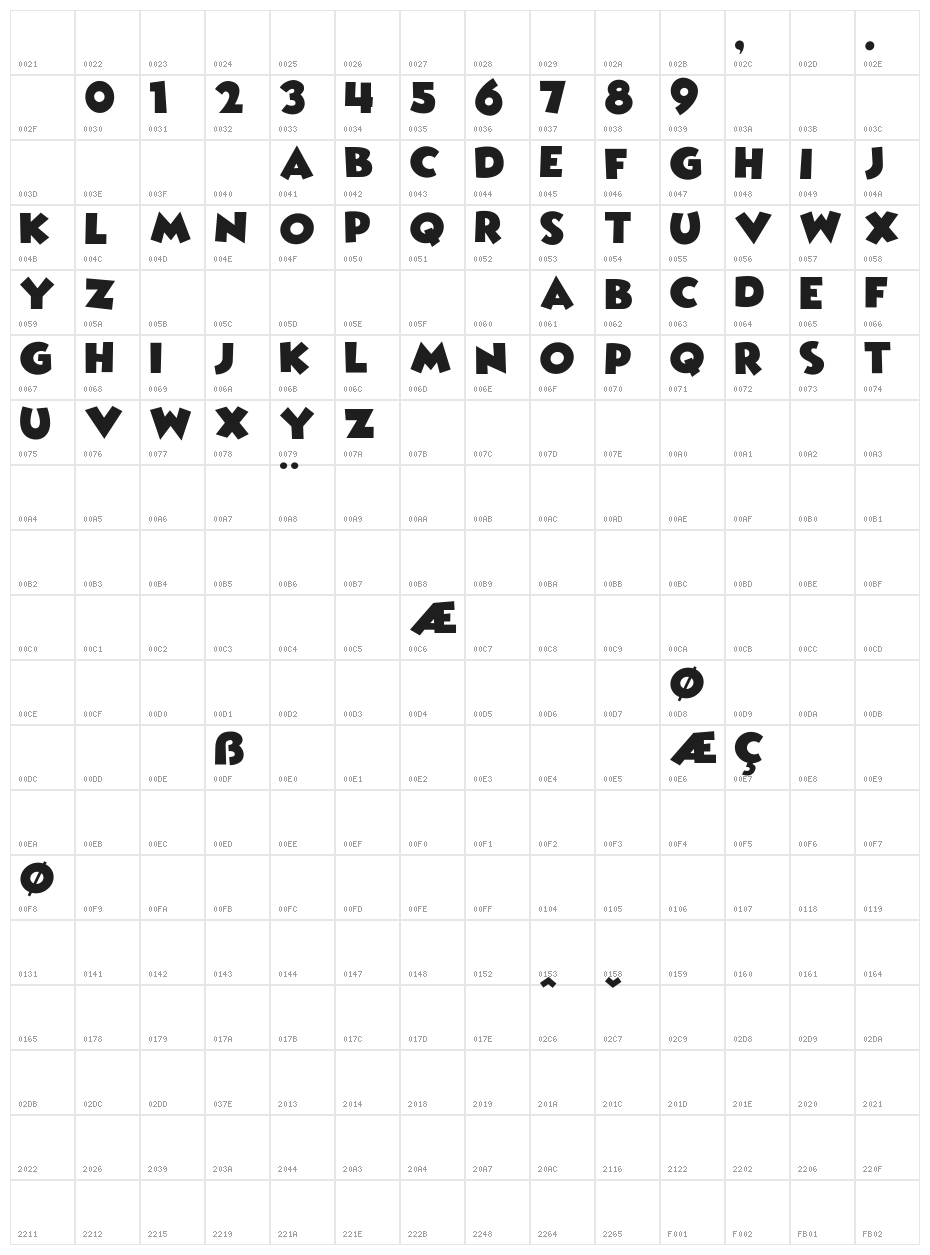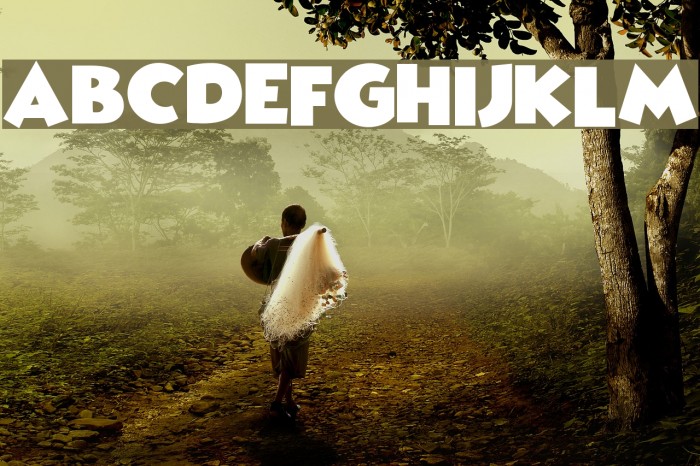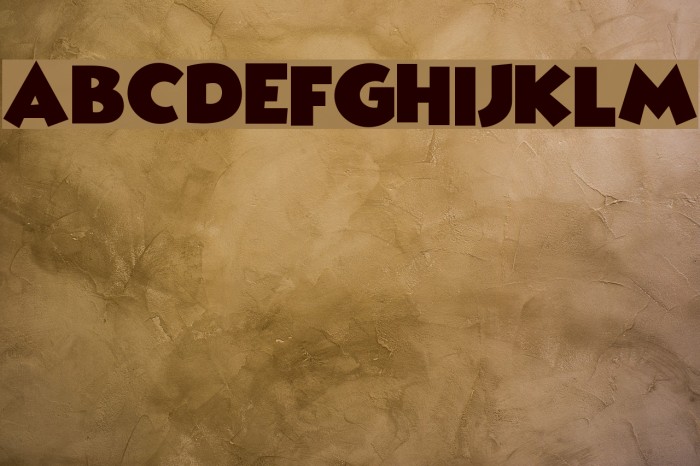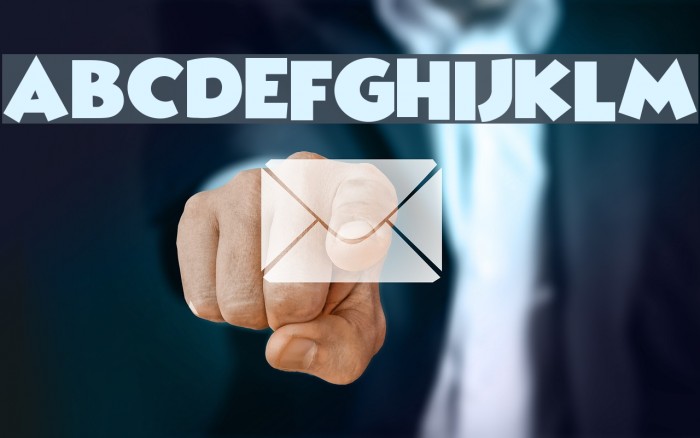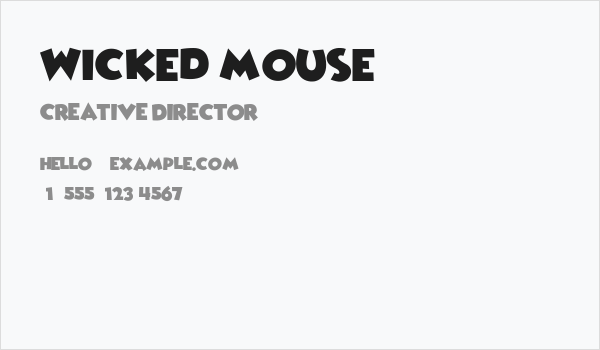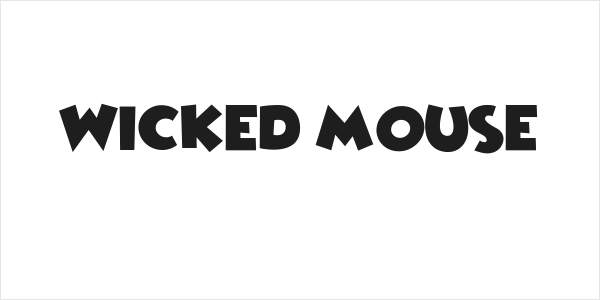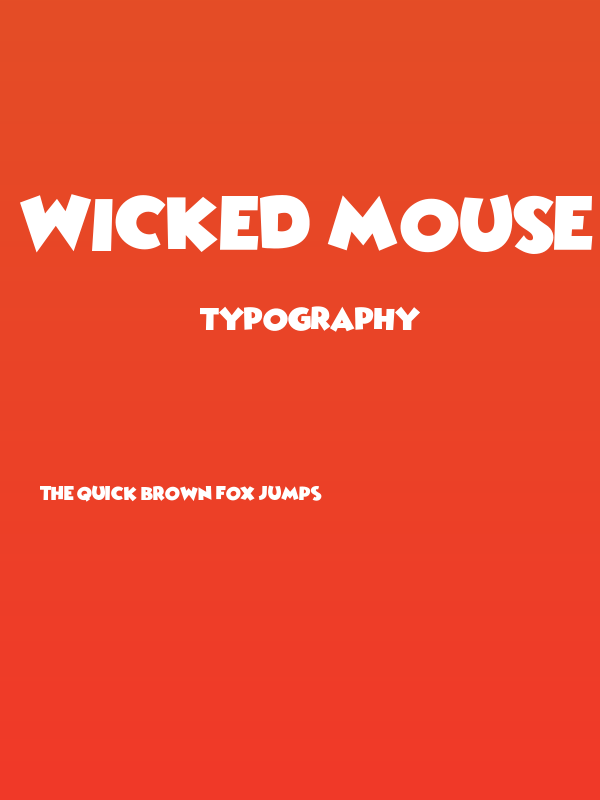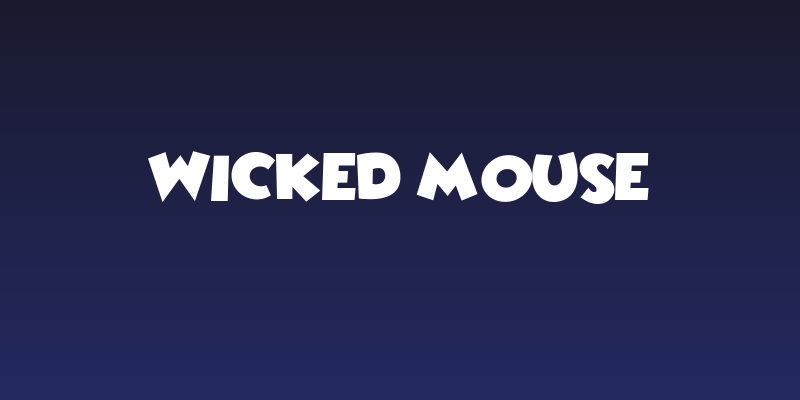
Wicked Mouse Font
Wicked Mouse Description
This font features bold, playful characters with a whimsical and cartoonish style. The letters are thick and rounded, with a distinctively fun and energetic appearance. The uppercase and lowercase letters maintain a consistent weight, creating a cohesive look. The numbers are equally bold, matching the playful aesthetic of the alphabet. The font is designed to capture attention and convey a sense of fun and creativity, making it ideal for projects that require a lively and engaging typeface. The overall design is clean and modern, with a touch of nostalgia reminiscent of classic cartoon styles.
| Overall Style | Playful, Cartoonish, Modern |
| Proposed Projects | Ideal for children's books, animated movie titles, playful branding, and creative posters. |